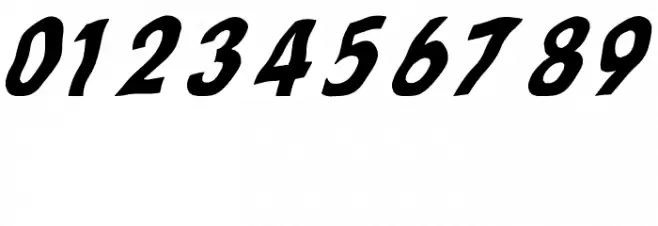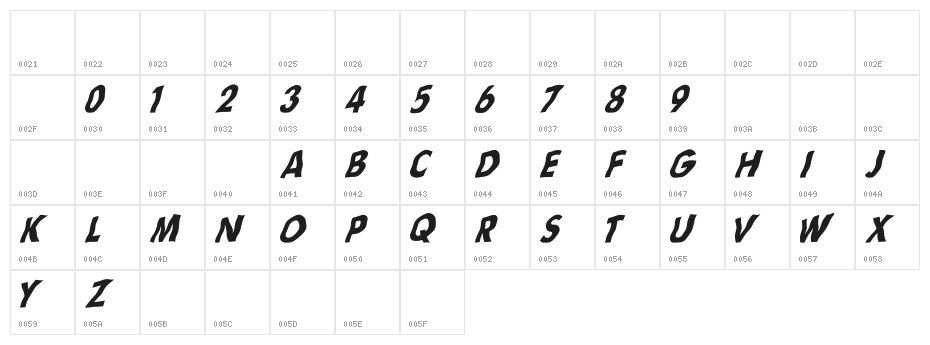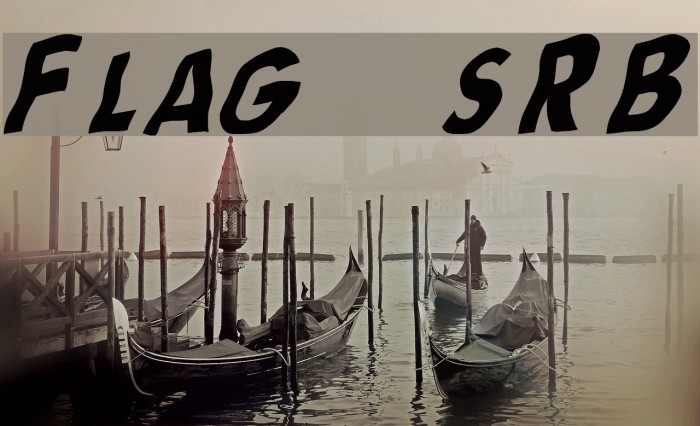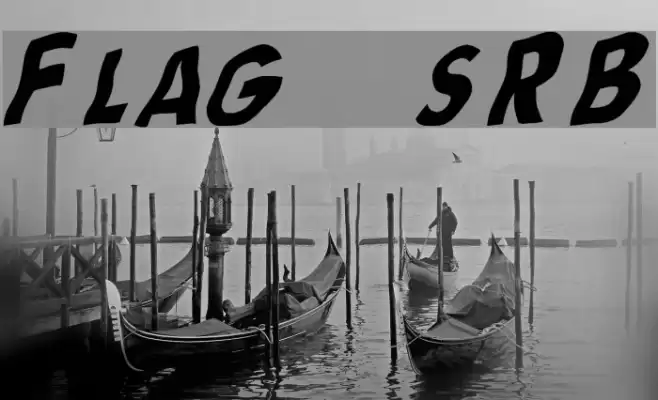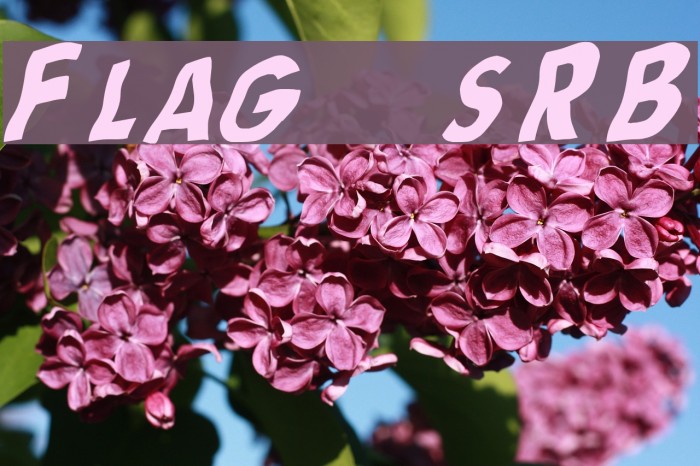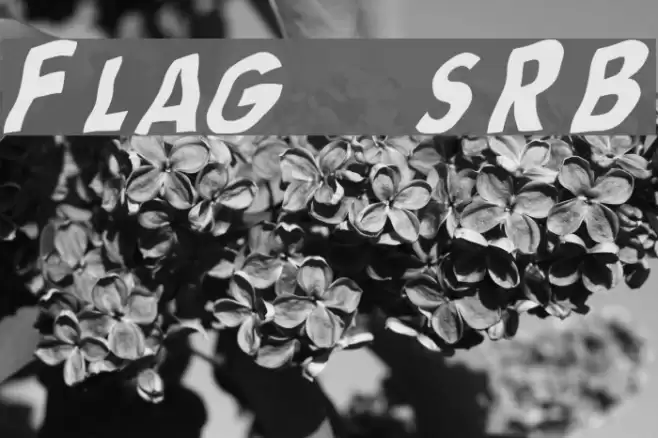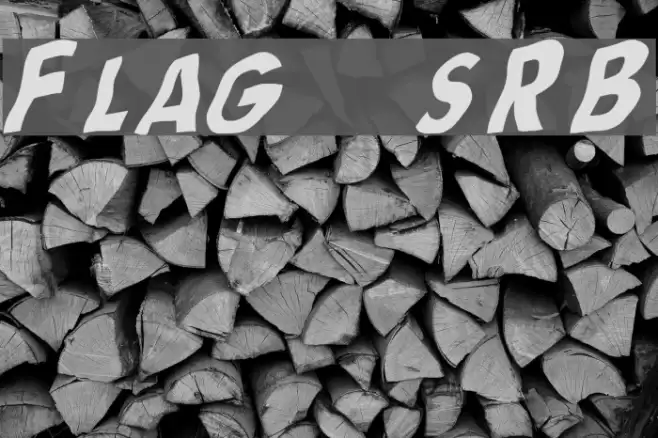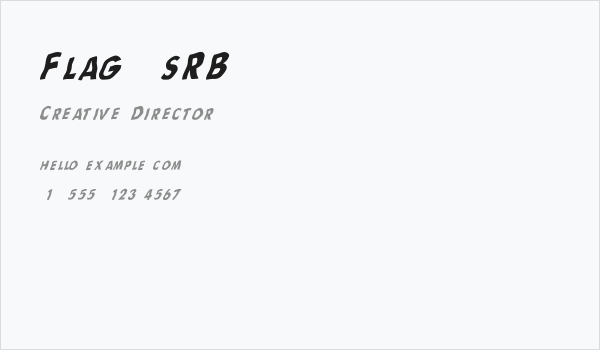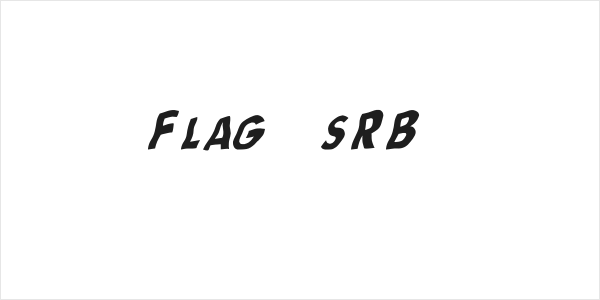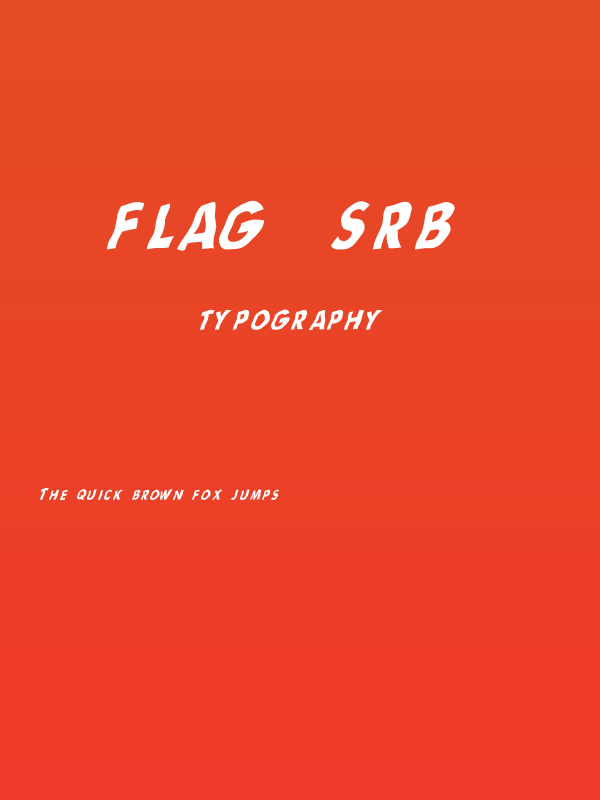
Flag [sRB] Font
Flag [sRB] Description
This font features a bold and dynamic style with a slight slant, giving it a sense of motion and energy. The characters are thick and robust, with a consistent stroke width that maintains readability while adding a touch of flair. The uppercase and lowercase letters are distinct, with the uppercase being more pronounced and the lowercase maintaining a similar style but with a slightly more compact form. The numbers are bold and clear, matching the overall aesthetic of the letters. This font is ideal for projects that require a strong visual impact, such as posters, headlines, or branding materials.
| Proposed Projects | Posters, headlines, branding materials, sports team logos, and dynamic advertisements. |